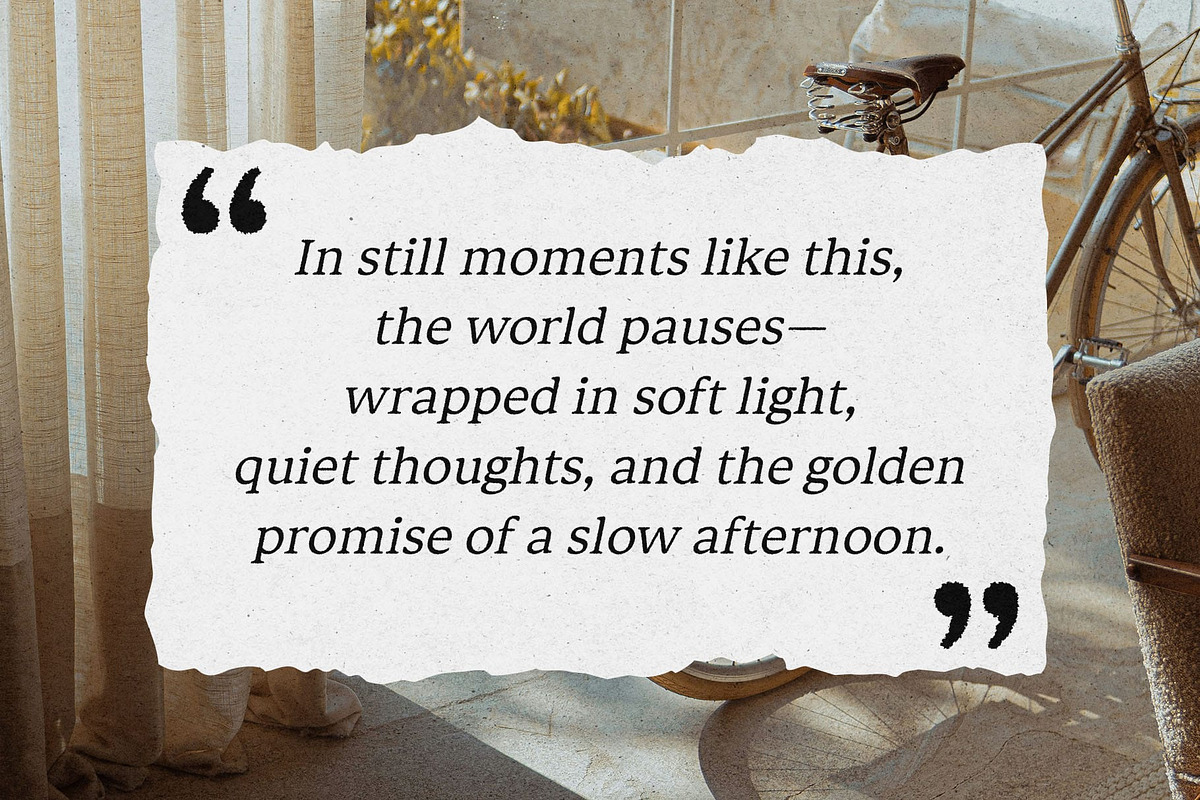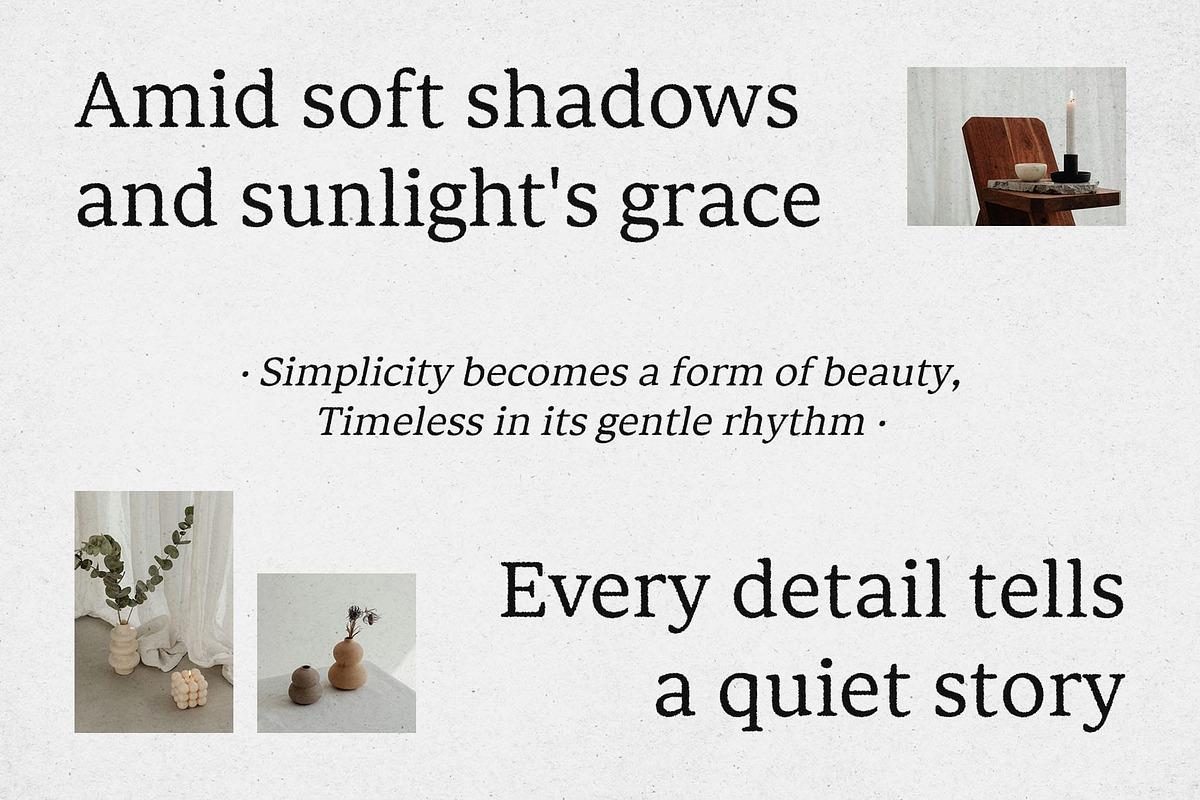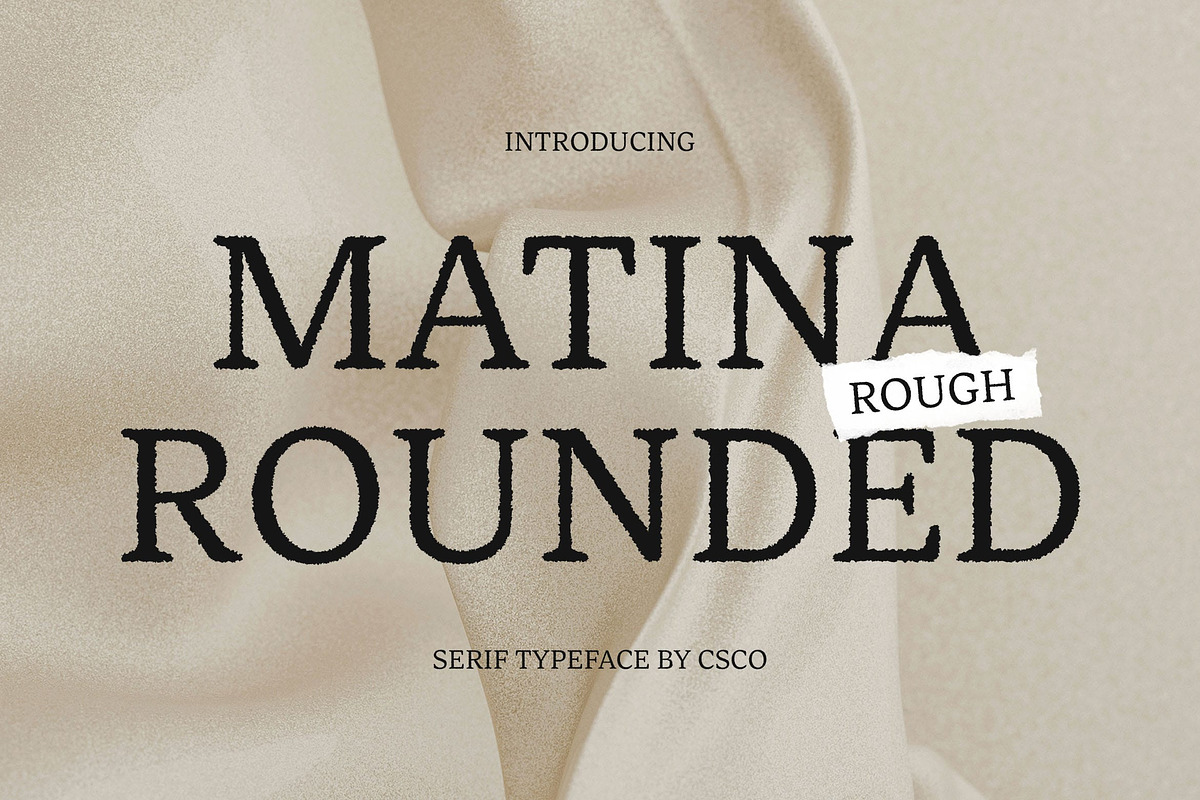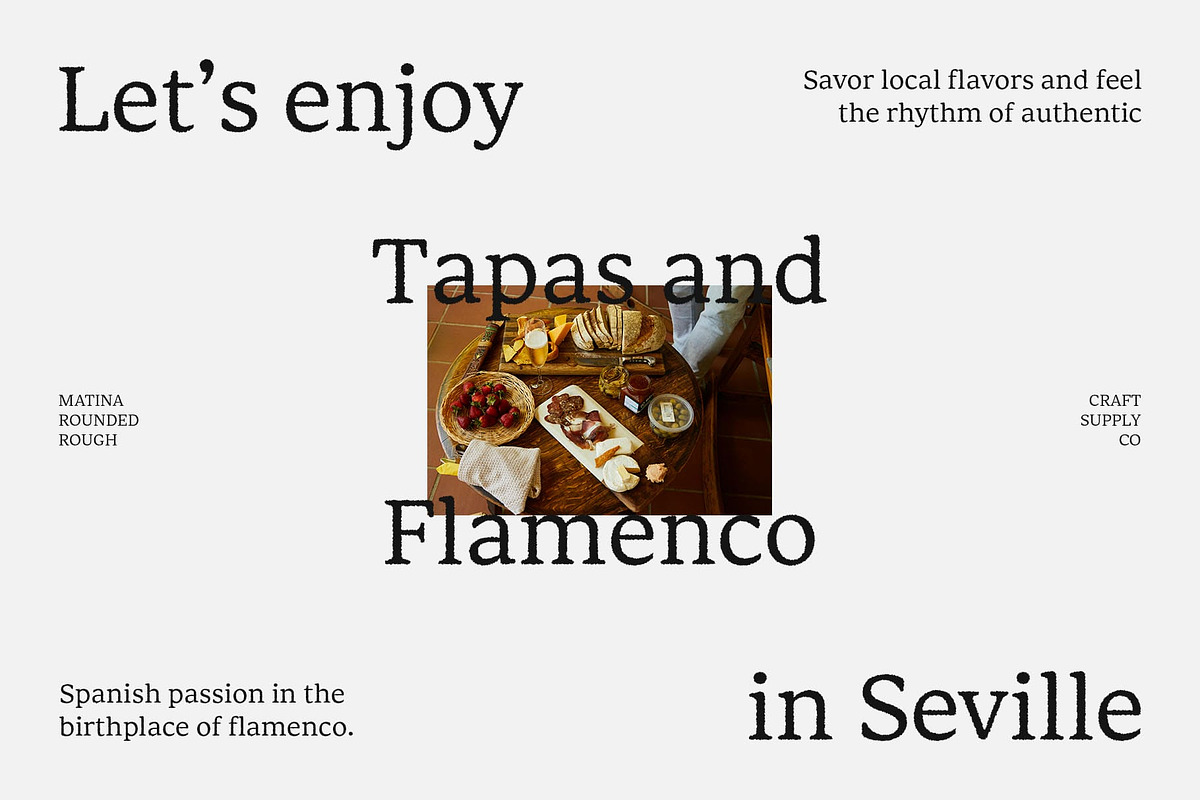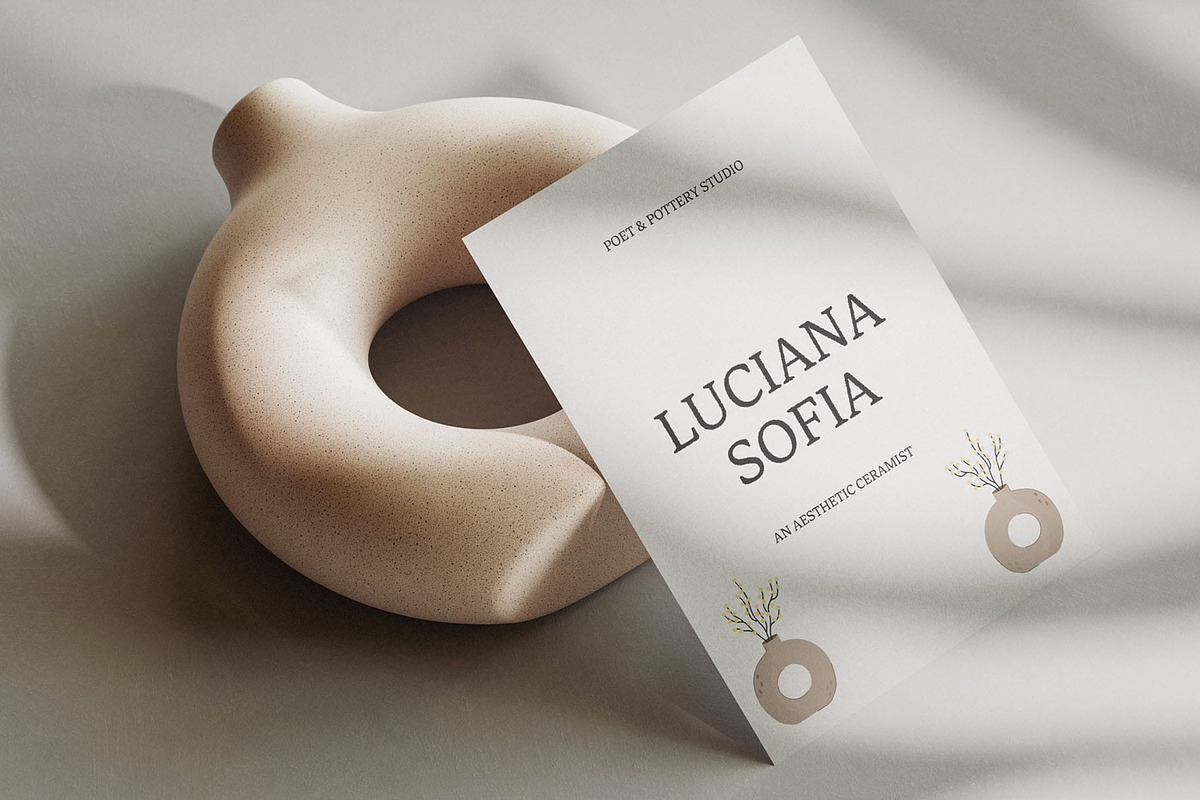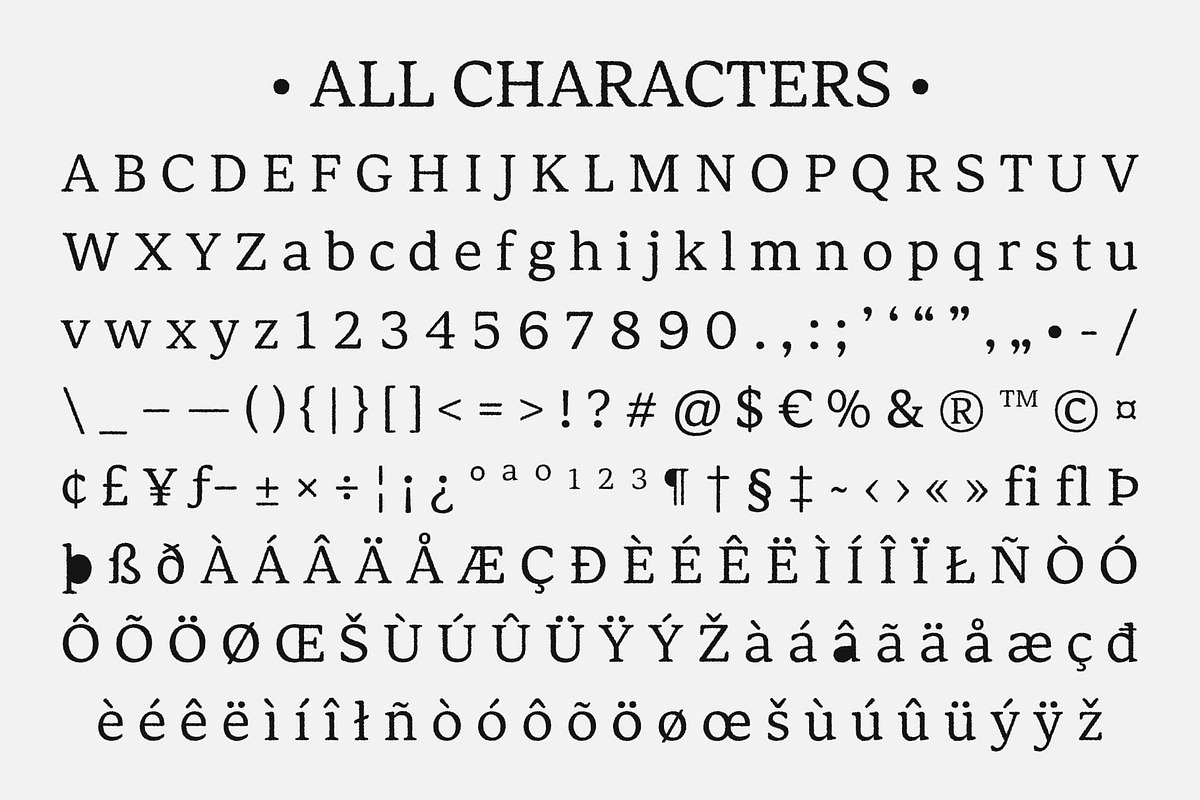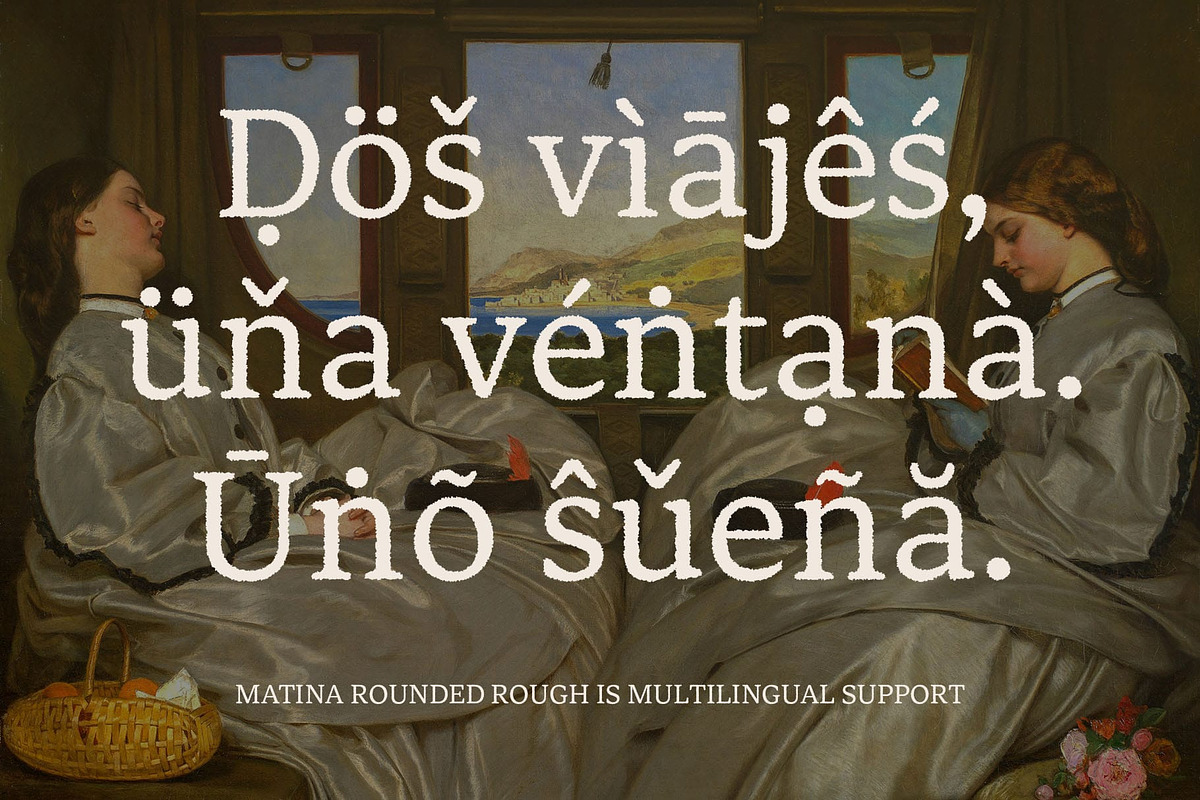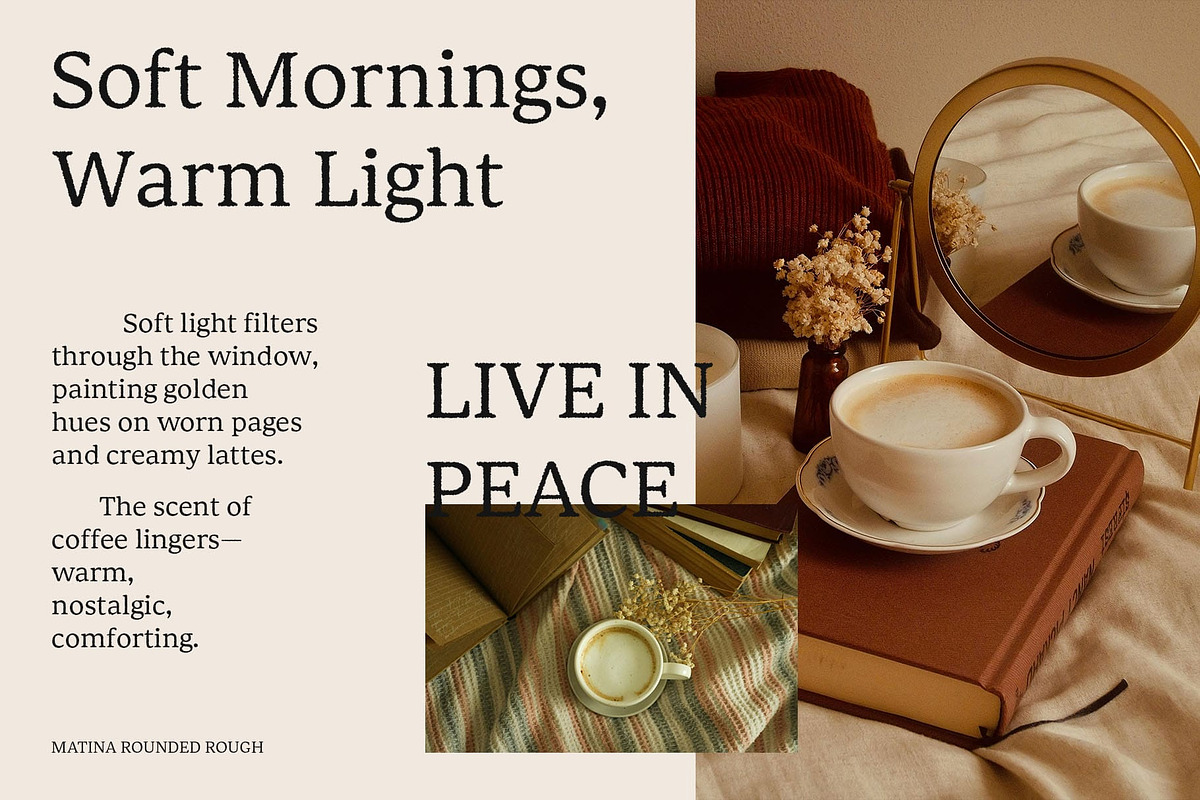
Matina Rounded Rough
Matina Rounded Rough: Where Modern Classic Meets Textured Elegance
Clean, Contemporary, and Highly Readable Matina Rounded Rough is a modern classic serif font that blends clean, contemporary design with rounded edges, offering a look that is both elegant and highly readable. The bold serif shapes are softened by the rounded curves, creating a friendly yet sophisticated character that balances strength with warmth.
Organic Rough Effect for Depth and Character Enhanced with a rough effect, this font introduces a textured, raw quality that adds depth and dimension to your design. The organic feel contrasts with the smooth, modern lines, bringing an unexpected vintage touch. The rough effect softens the overall appearance, giving the font a less rigid, more approachable look while maintaining its bold impact.
Perfect Balance of Classic and Contemporary This modern serif font is ideal for designs that seek to merge traditional and modern elements. Whether used for branding, posters, or packaging, its combination of classic serif structure and contemporary rounded edges creates a versatile and striking visual style.
Versatile and Striking for Various Projects From luxury branding to creative packaging, Matina Rounded Rough’s distinctive character elevates any design. Its clean readability and bold yet approachable personality make it perfect for a wide range of projects, from high-end designs to artistic, experimental concepts. This font works beautifully in both professional and creative contexts, offering flexibility without sacrificing impact.